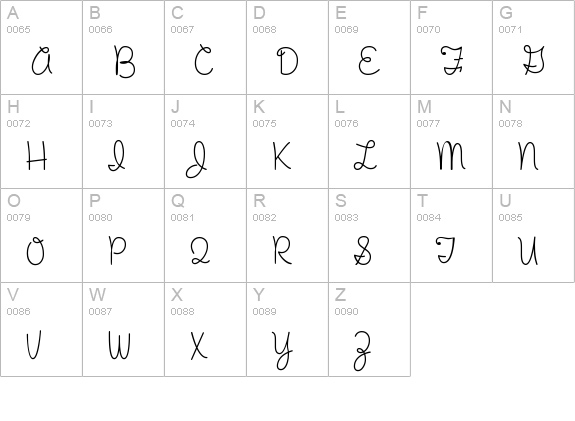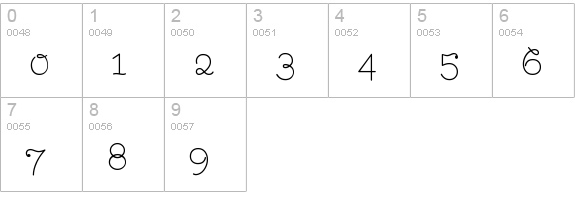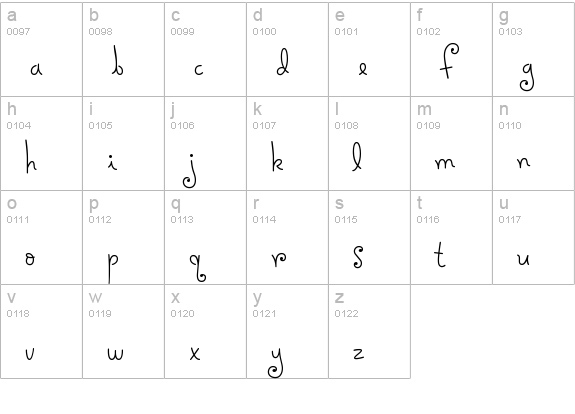
Holiday Springs BTN Lt Font Details
Holiday Springs BTN Lt is a stylish and elegant font that exudes a sense of sophistication and charm. With its delicate curves and graceful lines, this font is perfect for adding a touch of class to any design project. Whether you're creating invitations, greeting cards, or branding materials, Holiday Springs BTN Lt will elevate your work to the next level. The best part? Holiday Springs BTN Lt is completely free to download at FontsMarket.com. That's right, you can access this beautiful font at no cost, making it a must-have addition to your font collection. Don't miss out on the opportunity to enhance your designs with the timeless beauty of Holiday Springs BTN Lt. Download it today and let your creativity shine!